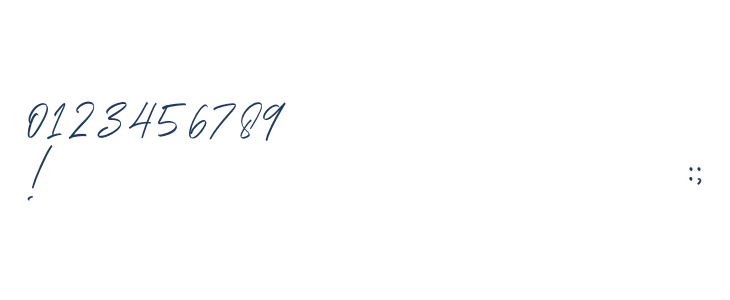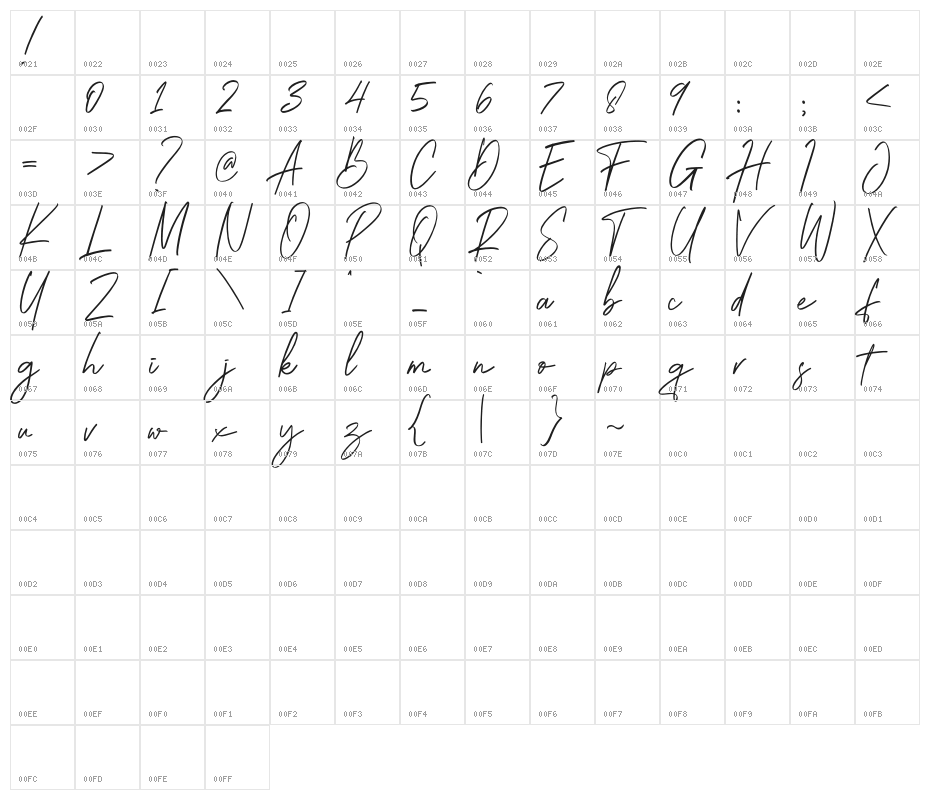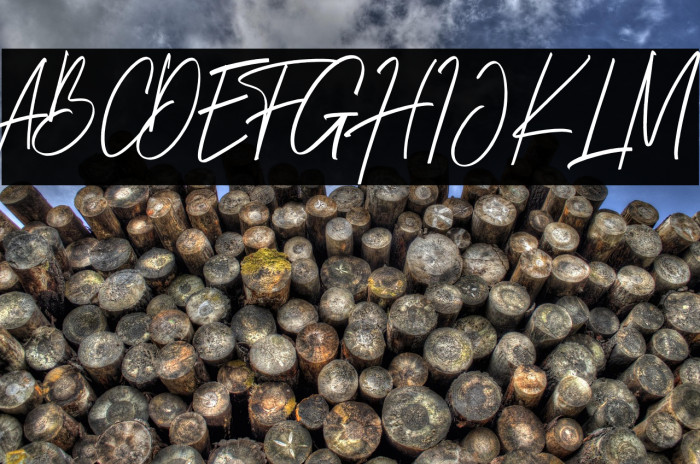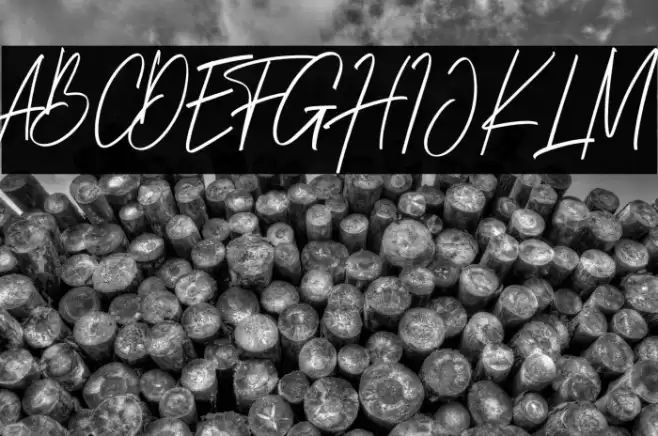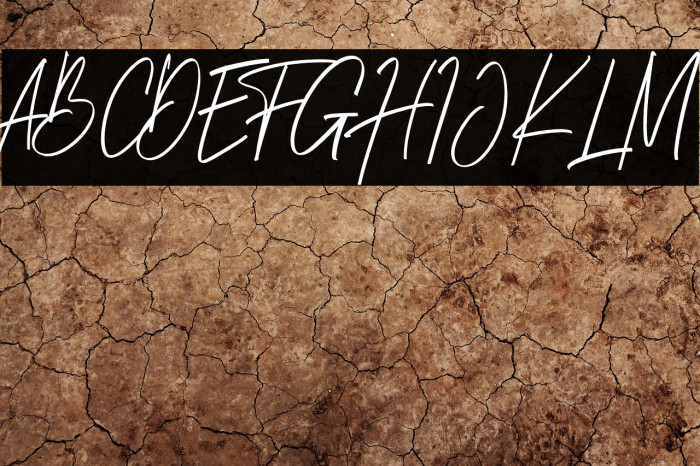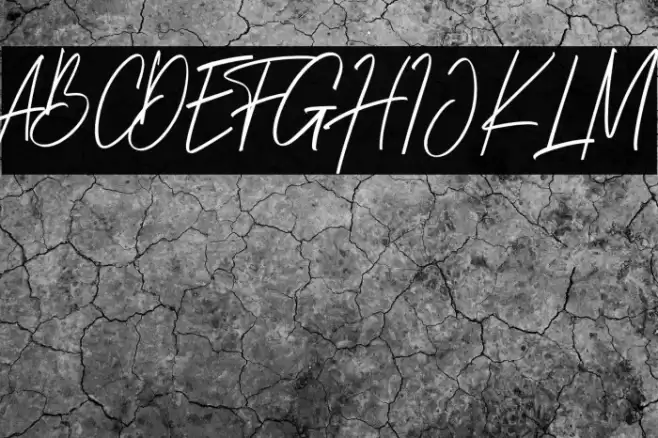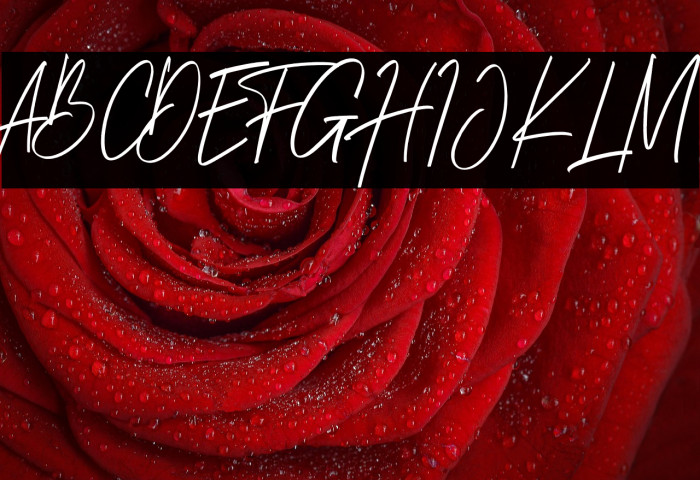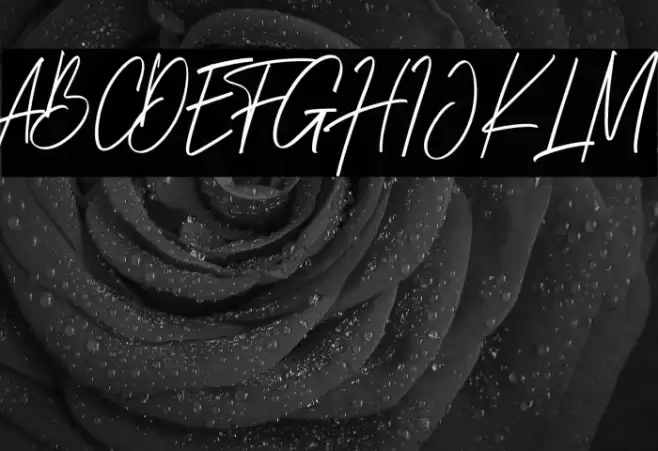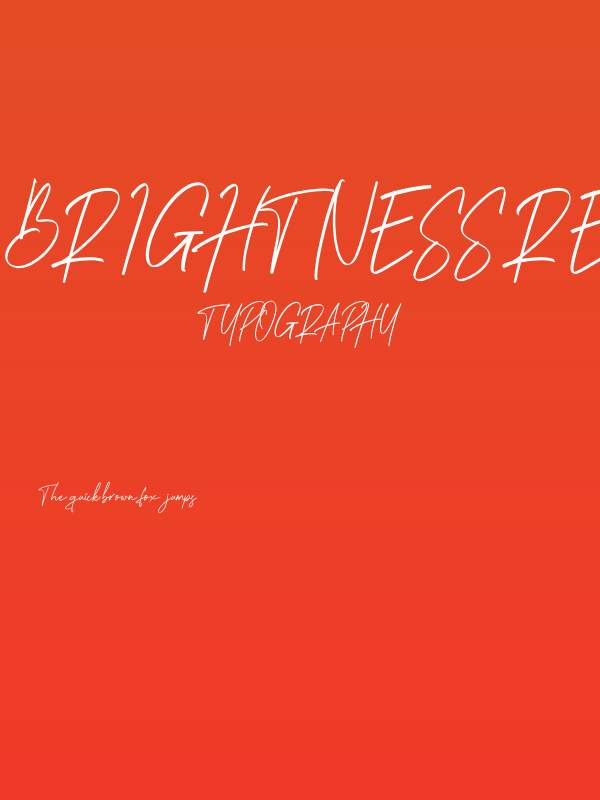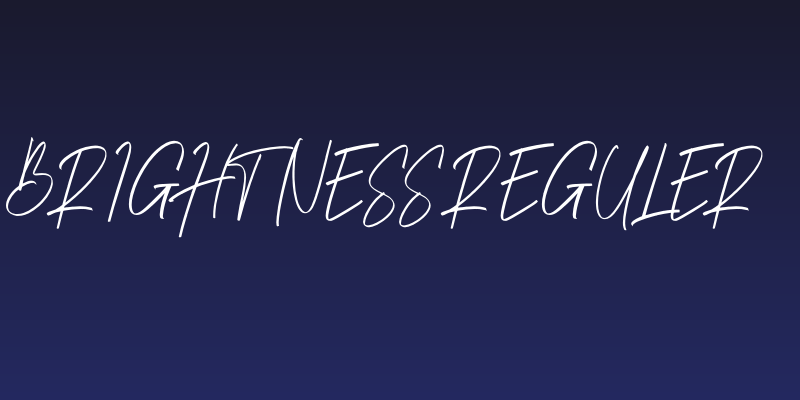
Brightness Reguler Font
Brightness Reguler Description
This font features a dynamic and fluid handwritten style, characterized by its elegant and flowing script. The letters are connected in a cursive manner, giving it a personal and artistic touch. The uppercase letters maintain a consistent height, while the lowercase letters exhibit a slight slant, enhancing the natural handwriting effect. The numbers and special characters are seamlessly integrated, maintaining the overall aesthetic. The strokes are thin and delicate, adding to the sophisticated appearance of the font.
| Overall Style | Elegant, Artistic |
| Proposed Projects | Ideal for wedding invitations, personal branding, greeting cards, and artistic projects that require a personal touch. |